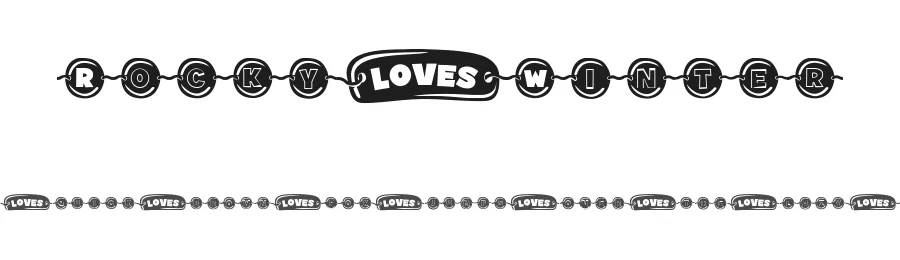
About Unity Dances Font
Unity Dances is a decorative font designed by Cumberland Fontworks. It includes 117 glyphs, a regular weight, OTF (CFF) format, and 109 languages. Unity Dances is free to download; check the license details on this page before commercial use. Decorative fonts like Unity Dances work best for logos, posters, packaging, and standout headlines.
| Font Family | Unity Dances |
| Designer | S. John Ross |
Unity Dances ships with 1 OpenType feature you can switch on in apps that support them (Illustrator, InDesign, Affinity, Figma, CSS font-feature-settings).
Unity Dances Font is a decorative font that shines as a display or heading face. Pair it with a clean sans-serif or serif font for body text β the contrast creates a clear hierarchy while the two styles stay balanced and easy to read.